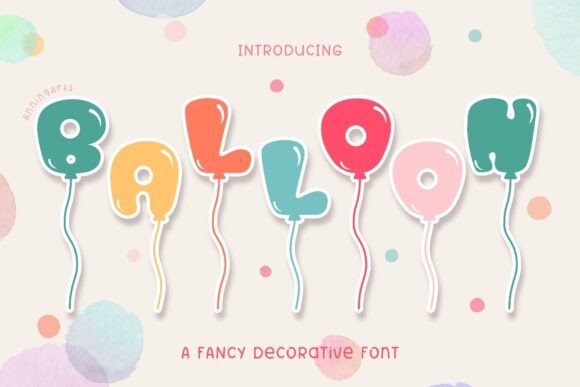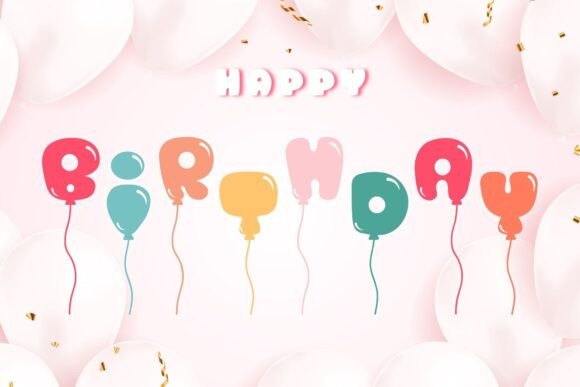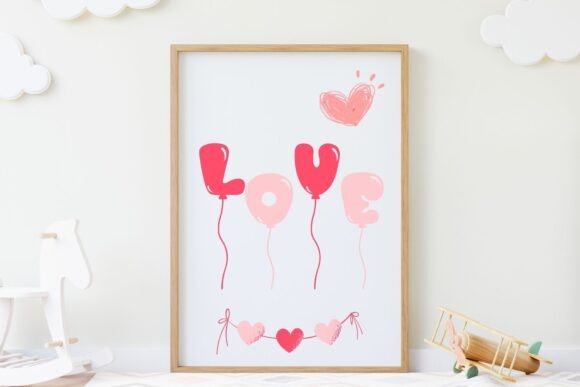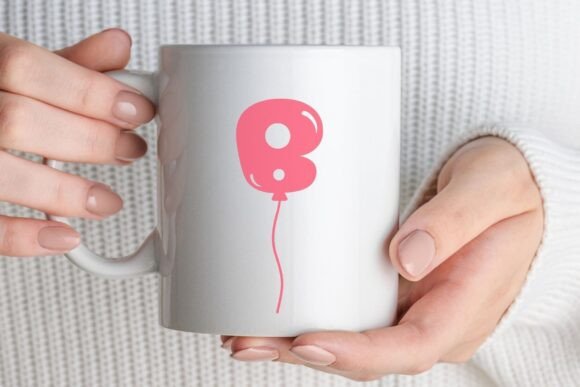
About the Balloon Font
Make a bold statement with Balloon Font, a powerful and memorable font. Introducing Balloons – a bubble font that evokes a sense of joy and imagination. It’s more than just a typeface, it’s the perfect companion for kids’ projects that deserve a touch of charm. With its cheerful contours and adorable springy appeal, Balloons easily stand out on headlines or posters, turning any ordinary task into a fun festival. Whether to liven up a birthday celebration or add a cheerful touch to a party, Balloons is a cheerful font that is sure to delight, entertain and captivate.